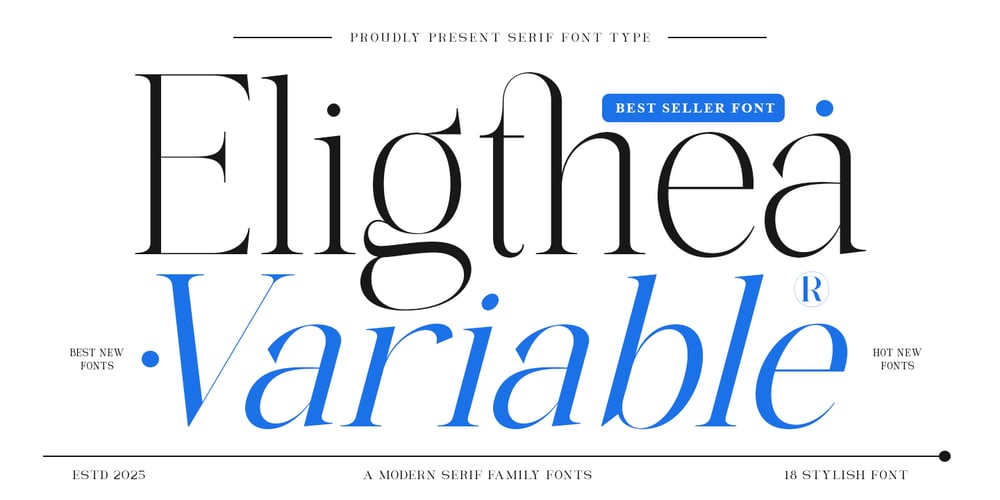
Eligthea Variable
Eligthea Variable font
Eligthea Variable Font Family was designed by Ikhsan Maulana and published by IM Studio. Eligthea Variable contains 18 styles and family package options. Introducing Eligthea Variable: A Typeface for Timeless EleganceExperience the allure of timeless sophistication with Eligthea Variable, a thoughtfully designed typeface that blends classic elegance with a contemporary aesthetic. With high-contrast strokes and graceful curves, Eligthea Variable Serif provides a captivating visual harmony to elevate any design project.Perfect for sophisticated editorial layouts, memorable brand identities, or engaging websites, Eligthea Variable flexibility and refined beauty ensure your designs stand out. Each character embodies strength and elegance, from the finely chiseled serifs to the perfectly balanced proportions, celebrating the timeless appeal of classic typography. Its true italics offer a unique style and dynamic movement, adding visual interest and enhancing readability.Key Features:Effortless Elegance: Clean lines and balanced proportions exude classic charm, making it ideal for a wide range of applications.Advanced OpenType Features: Unlock advanced typography options, including ligatures, for full creative control.Multilingual Support: Support for over 90 languages ​​ensures your message resonates globally.True Slant: Carefully designed italics complement upright characters, creating a harmonious visual flow.Perfect For:Editorial Design: Ideal for magazines, newspapers, and books, combining elegance with readability for long-form content.Branding & Logos: Create a sophisticated and memorable brand identity with the timeless appeal of Eligthea Variable.Web Design: Clean lines and high contrast ensure optimal readability on screens of all sizes.Packaging & Print: Add a touch of class to your product packaging and printed materials.Invitations & Stationery: Make a lasting impression with Eligthea Variable elegant presence on invitations, greeting cards, and more.Files included:Eligthea Variable ThinEligthea Variable Extra LightEligthea Variable RegularEligthea Variable MediumEligthea Variable Semi BoldEligthea Variable Extra BoldEligthea Variable BlackEligthea Variable Slant ThinEligthea Variable Slant Extra LightEligthea Variable Slant RegularEligthea Variable Slant MediumEligthea Variable Slant Semi BoldEligthea Variable Slant Extra BoldEligthea Variable Slant BlackEnter the world of Eligthea Variable —the perfect blend of elegance and versatility. Download today and unlock endless typographic possibilities.